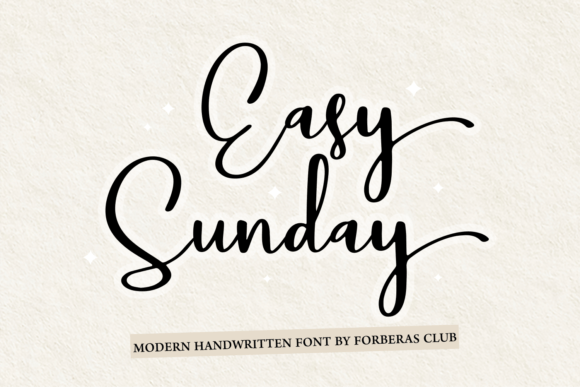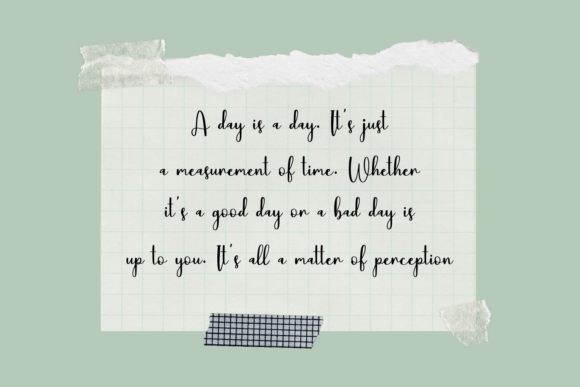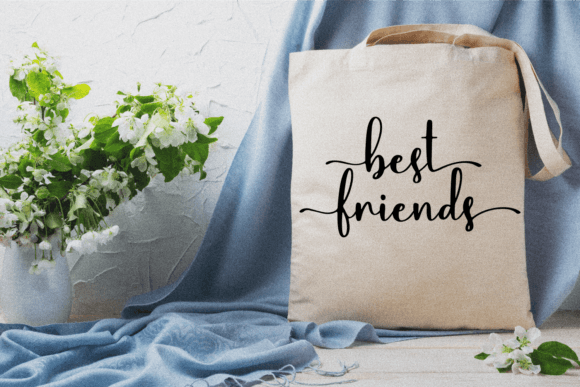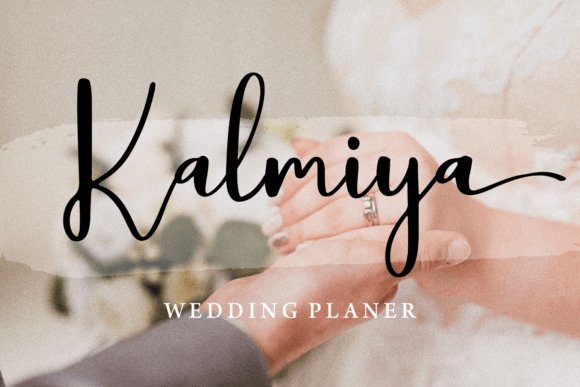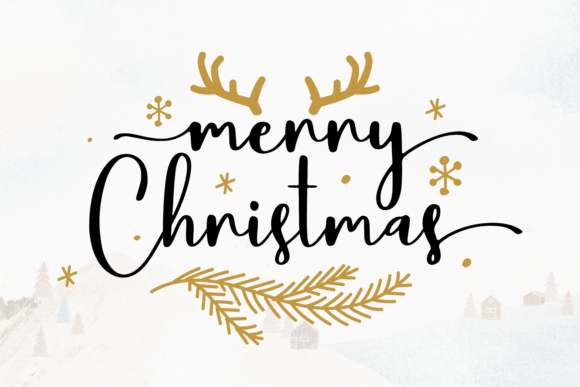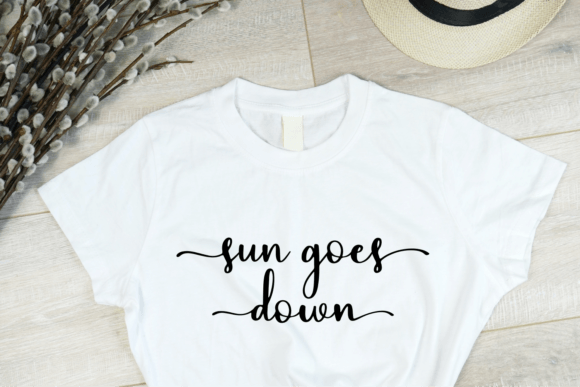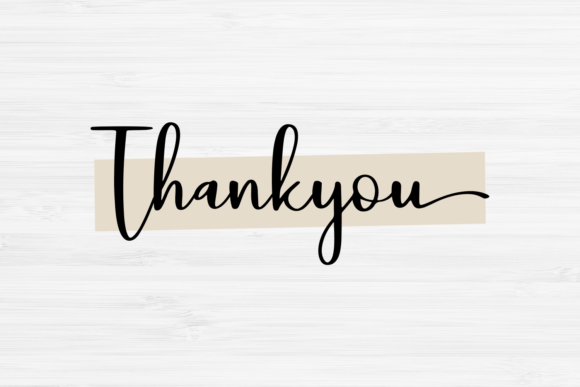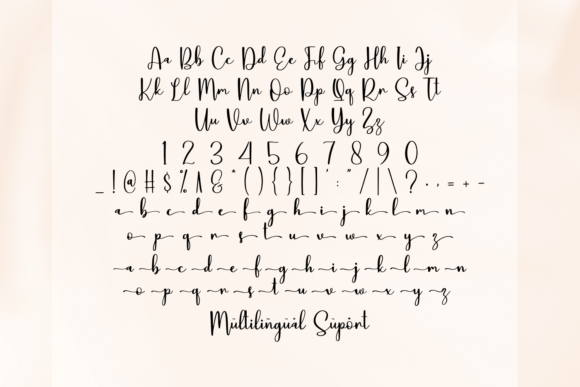
Easy Sunday Font
About Easy Sunday Font
Easy Sunday Font download offers a smooth and modern handwritten script designed to bring elegance, energy, and clarity to your designs. This stylish typeface stands out with its bold curves and confident strokes, making it ideal for projects that need both personality and polish.
Whether you’re designing for a brand, event, or personal project, Easy Sunday delivers a smooth, stylish, and readable script that will make your work shine.
Bold Yet Graceful Handwritten Style
With a clean and confident aesthetic, this font blends strength and charm. It’s great for headlines, logos, packaging, and other visual materials where a handcrafted feel adds a personal touch.
• Branding and logo design
• Stylish quote posters
• Wedding invitations and stationery
• Product packaging and labels
• Social media content and graphics
• Handmade crafts and DIY projects
From digital designs to printed pieces, the Easy Sunday Font download gives your work a professional, yet handcrafted edge.
Designed to Impress
Font Features:
• Smooth and flowing handwritten look
• Bold yet readable lettering
With its graceful curves and confident strokes, Easy Sunday Font brings a personal yet professional feel to your typography. It’s the perfect typeface for creatives who want a balance of strength and elegance.